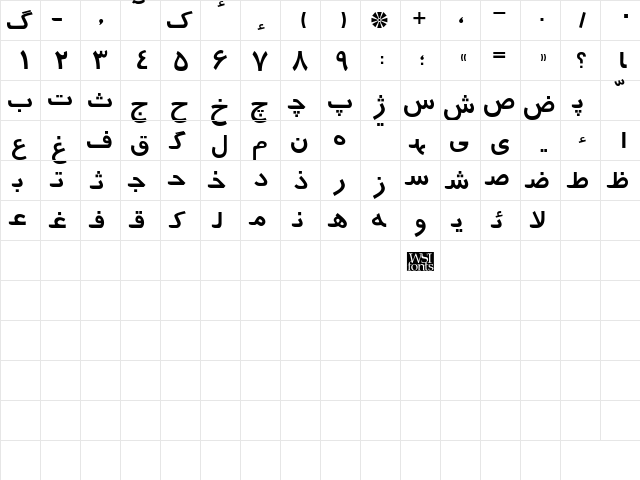
Persian Regular Font Preview
Persian Regular
Design Context for Persian Typeface
Persian is a composed and adaptable typeface that performs quietly and consistently across a wide range of design contexts.